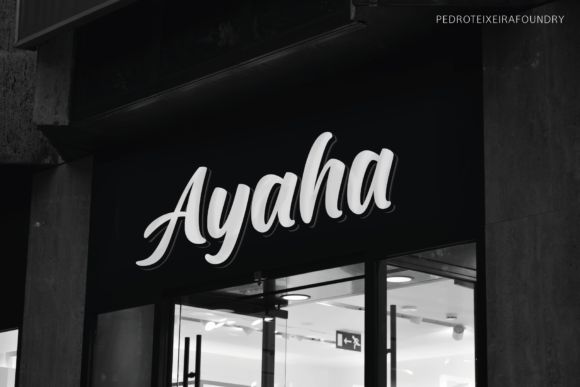
Step into an ethereal realm of beauty and charm with Ayaha Font, the exquisite script font that exudes casual elegance. Crafted with love by Pedro Alexandre Teixeira, Ayaha embodies the whimsical spirit of brush lettering, exuding a sense of warmth and approachability that instantly captivates hearts.
Indulge in the freedom of creativity with Ayaha's disconnected design, granting you the power to effortlessly adjust letter-spacing without compromising the aesthetic integrity of your designs. Dive into a world of endless possibilities, where customization meets visual harmony, allowing you to tailor Ayaha to reflect your unique vision.
Explore the treasure trove of alternate stylistic sets that Ayaha offers, a veritable feast of typographic adornments that will add depth, dimension, and intrigue to your projects. Elevate your branding, magazine layouts, headers, posters, logotypes, packaging, and more with the versatility and grace of Ayaha.
Ayaha's versatility knows no bounds, effortlessly adapting to a myriad of design applications. Whether you seek to enchant your branding with a touch of sophistication, infuse your magazine layouts with a sense of story, or create headers that command attention, Ayaha is your steadfast companion, ready to turn your creative dreams into tangible realities.
Unleash the boundless potential of Ayaha today and embark on a typographic adventure that will leave you spellbound. Let Ayaha be your muse, your guiding light, as you craft designs that resonate, designs that seduce the senses and leave an indelible mark on the hearts and minds of your audience.